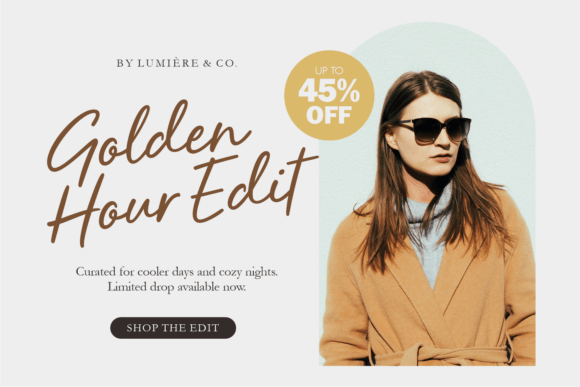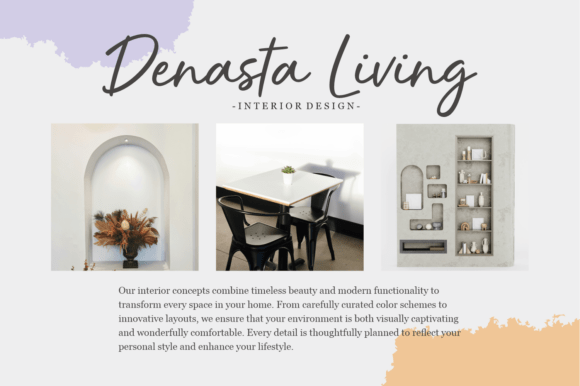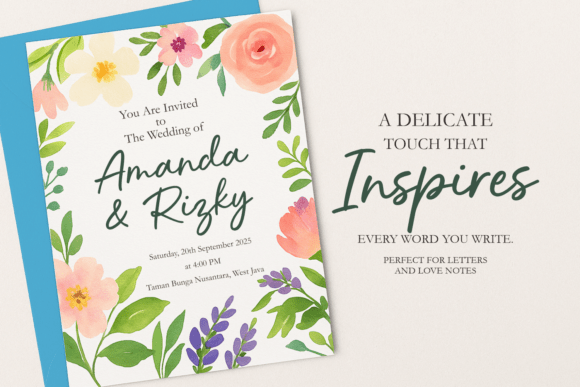
Celestine Scription Font
Introducing Celestine Scription, a graceful yet effortlessly chic casual script font that captures the beauty of modern handwriting. With its smooth curves, elegant strokes, and natural flow, Celestine Scription is perfect for projects that need a personal, stylish touch.💌 What’s Inside: • Uppercase & lowercase letters • Numbers & punctuation • Multilingual support • Smooth and clean monoline style 🌿 Perfect For: • Wedding invitations • Branding & logos • Social media graphics • Quotes and greeting cards • Packaging and product labels Celestine Scription blends the ease of handwritten charm with professional polish. Whether you’re designing for a romantic event or crafting a lifestyle brand, this font brings warmth, sophistication, and personality to every letter.